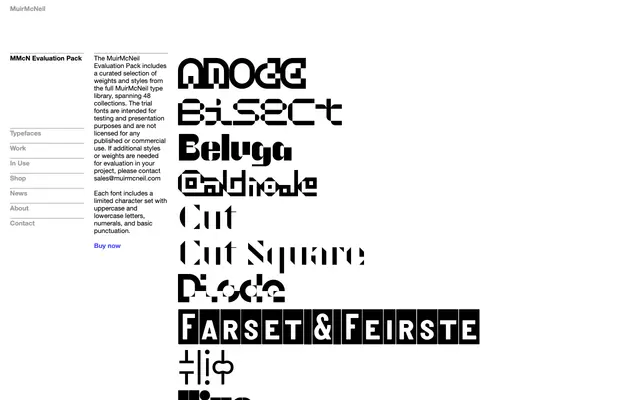
MMcN Evaluation Pack
A curated selection of weights and styles drawn from across MuirMcNeil's 48-collection type library, intended for testing and presentation use only.
The pack provides trial fonts from the full MuirMcNeil library, each with a limited character set covering uppercase and lowercase letters, numerals and basic punctuation. It is not licensed for published or commercial use; designers needing additional styles or weights for project evaluation are directed to contact MuirMcNeil directly. Functions as a low-friction entry point into a library known for systematic and experimental type design.
This is not a single typeface but a curated trial collection spanning 48 collections from the MuirMcNeil library; no single category can be assigned, so display is used as a placeholder reflecting MuirMcNeil's predominantly experimental and display-oriented output.